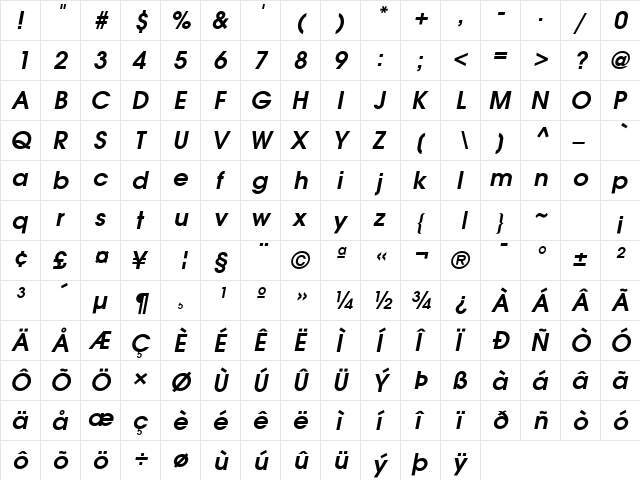
ForefrontSH Demi Oblique
Design Context for ForefrontSH Typeface
ForefrontSH takes a measured approach to typography — its balanced proportions and neutral character make it a reliable workhorse for both digital and print work. Its italic angle brings a sense of urgency and motion to the letterforms.
Pro Tip: Use ForefrontSH for emphasis, pull quotes, and subheadings where its slanted energy can add rhythm to the layout.